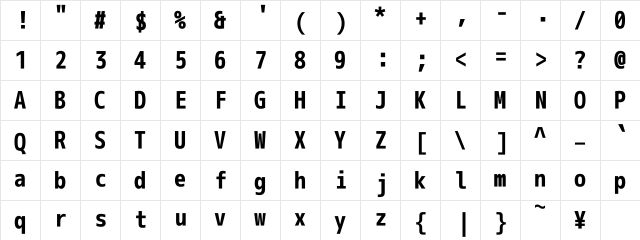
M+ 1m bold Font Preview
M+ 1m bold
M+ 1m bold Font Details
Design Context for M+ 1m Typeface
M+ 1m offers clean, dependable letterforms without strong stylistic allegiance, making it a practical choice for designers who need flexibility. The heavy weight commands attention and anchors typographic hierarchies.
Pro Tip: Use M+ 1m in both headline and body roles to test its range before committing to a single application.